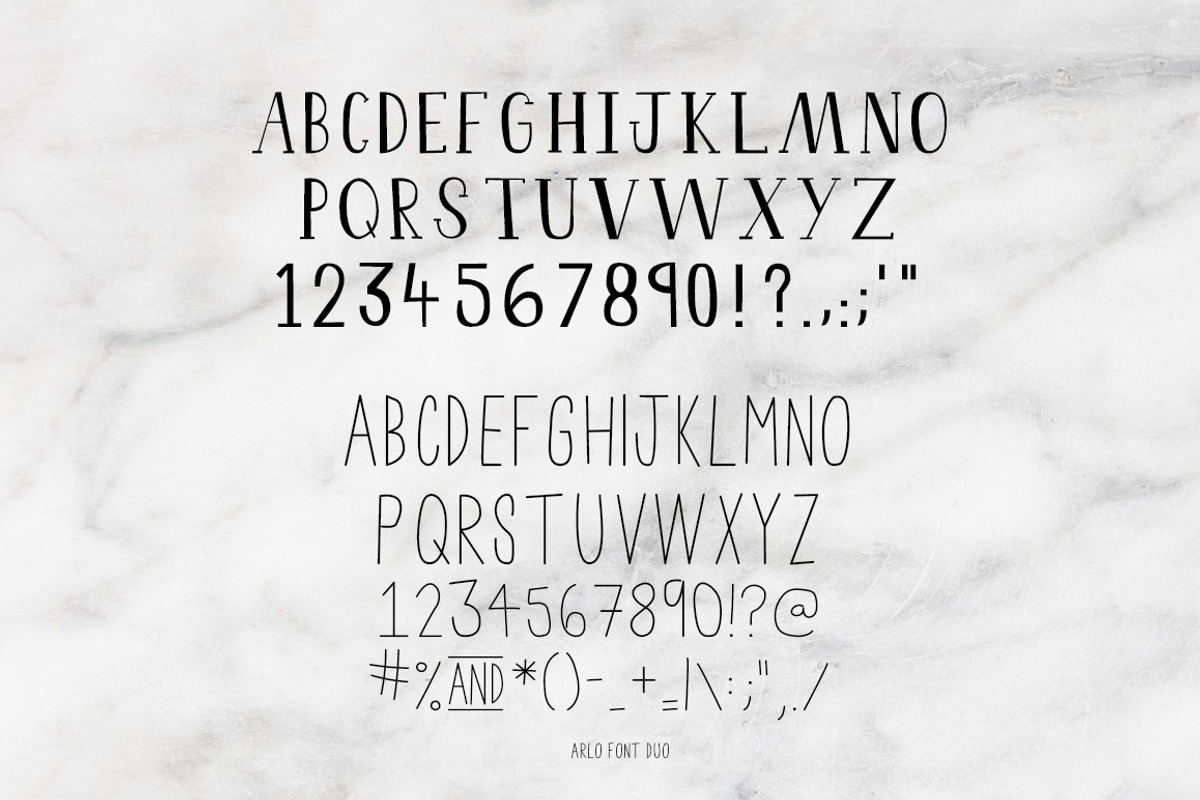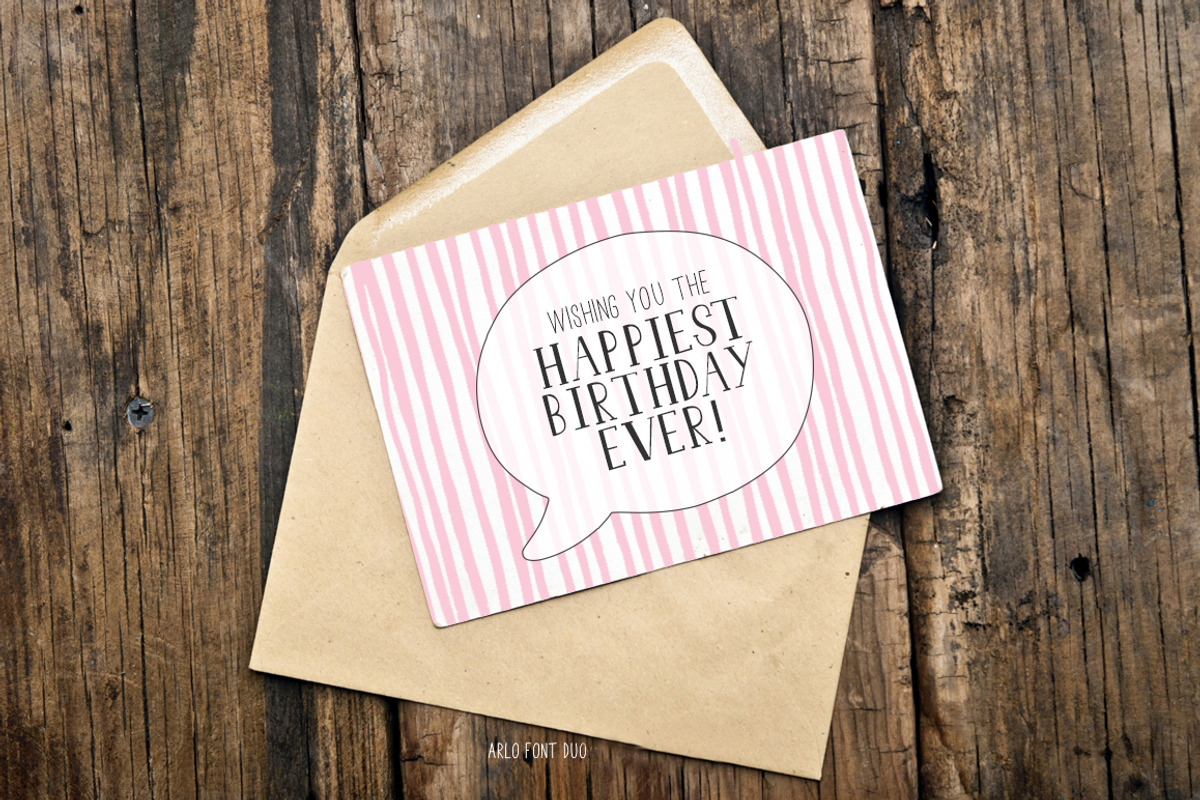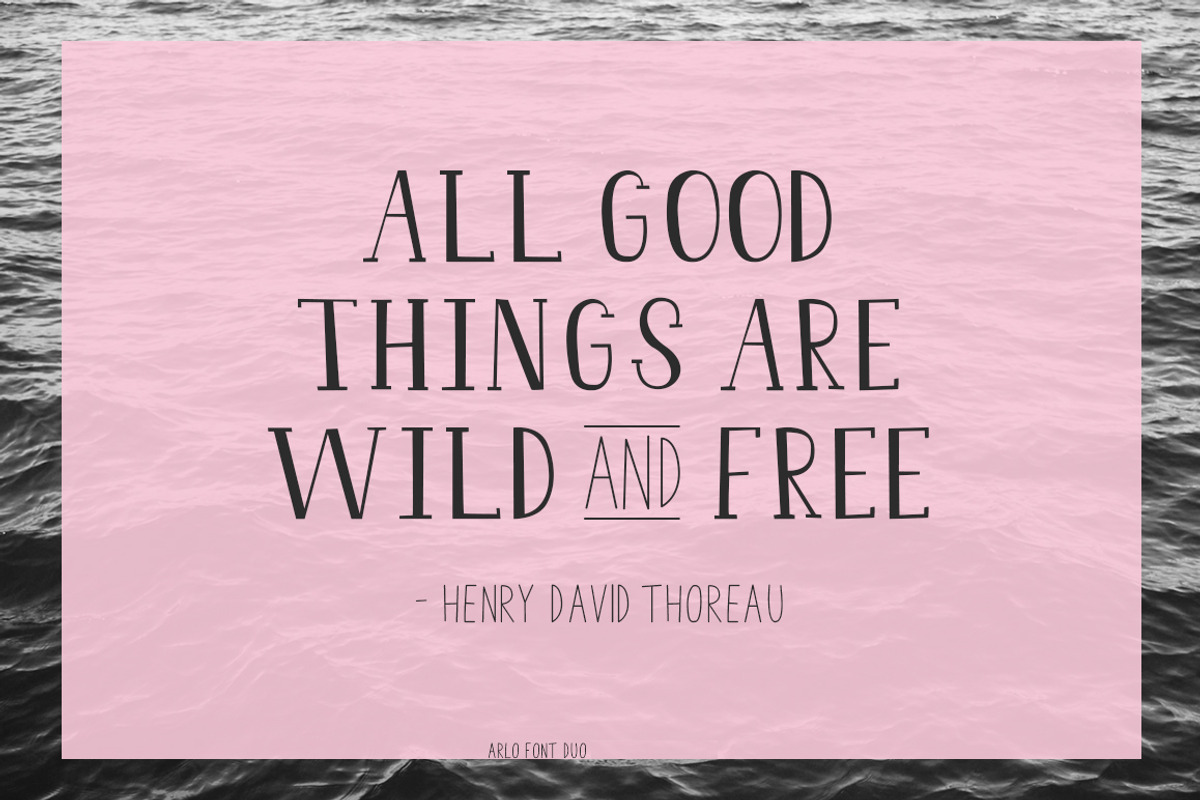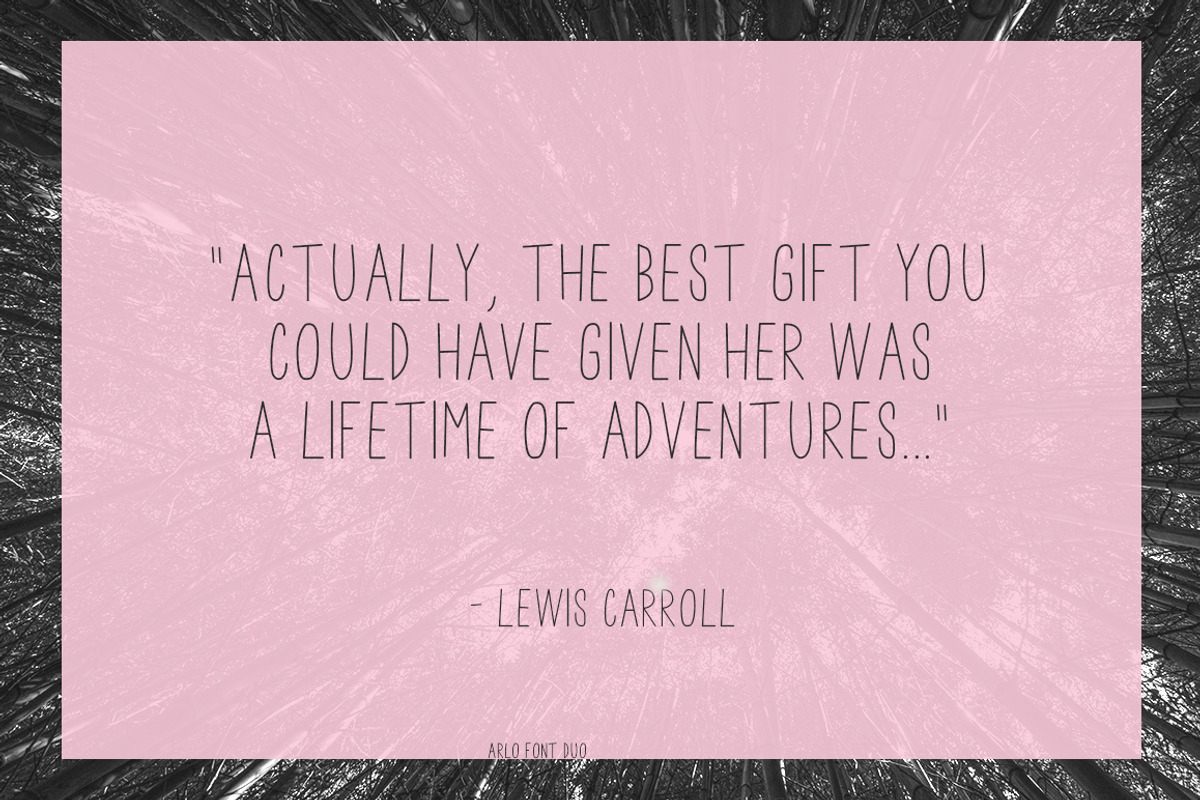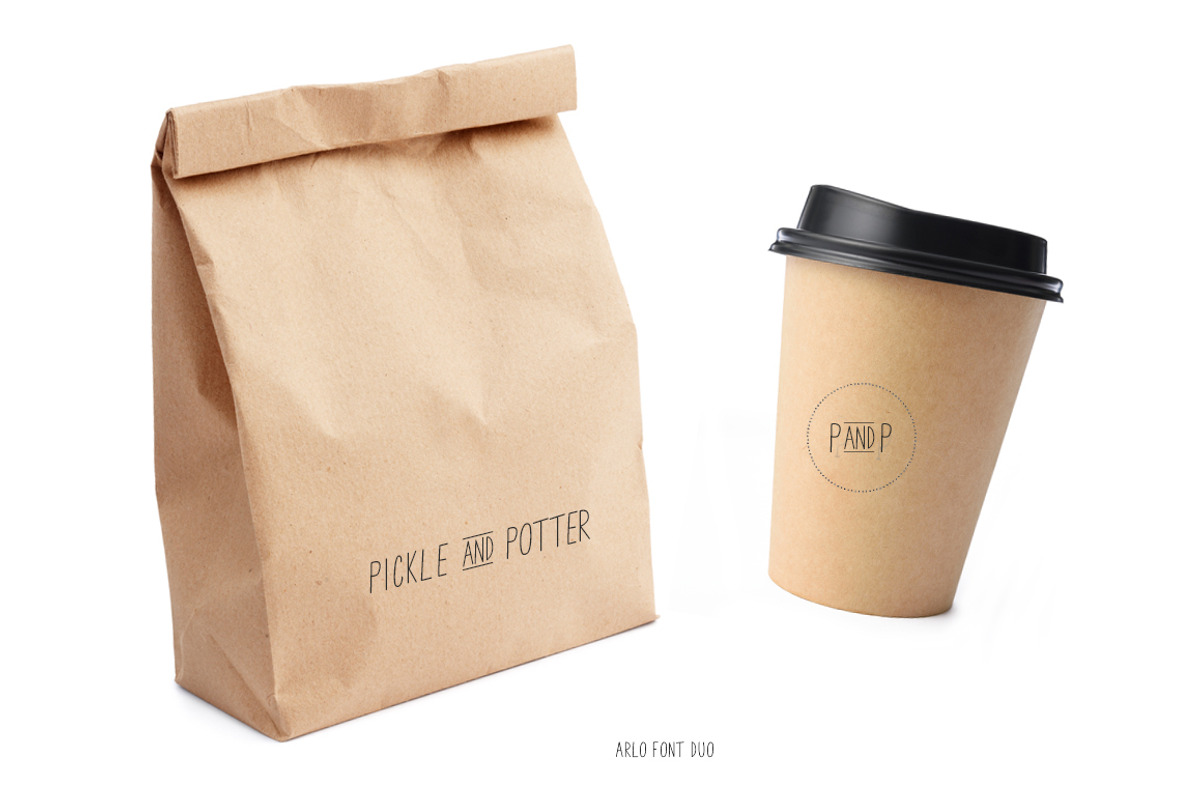
Arlo Font Duo
Arlo Font Duo by Studio Fawn is a font selected for branding, posters, packaging, typography.
- Arlo.otf designed as a headline display font
- Arlo-Lite.otf includes a few extra punctuation characters suitable for body copy.
- The uppercase duo works well together or alone as shown.
Arlo Font Duo by Studio Fawn fits naturally into Branding, posters, packaging, typography.